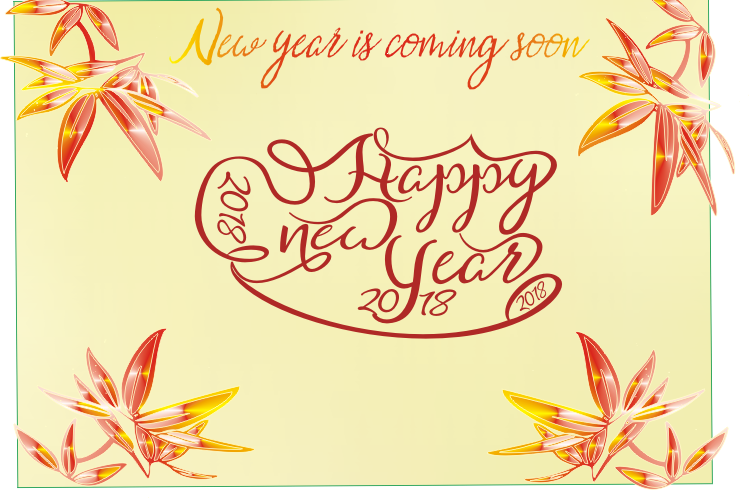
is a new varian of handmade script typepace. present to you to complete your colections of script font. This typeface has been enriches with additional alternates characters up to393 glyphs. Do hope helpfully to catch any design soul. finally, no word to say than "Go success and enjoy it".
Main Features:
Titling Alternate
Stylistic Alternate
media form
terminal form
initial form
ligatures